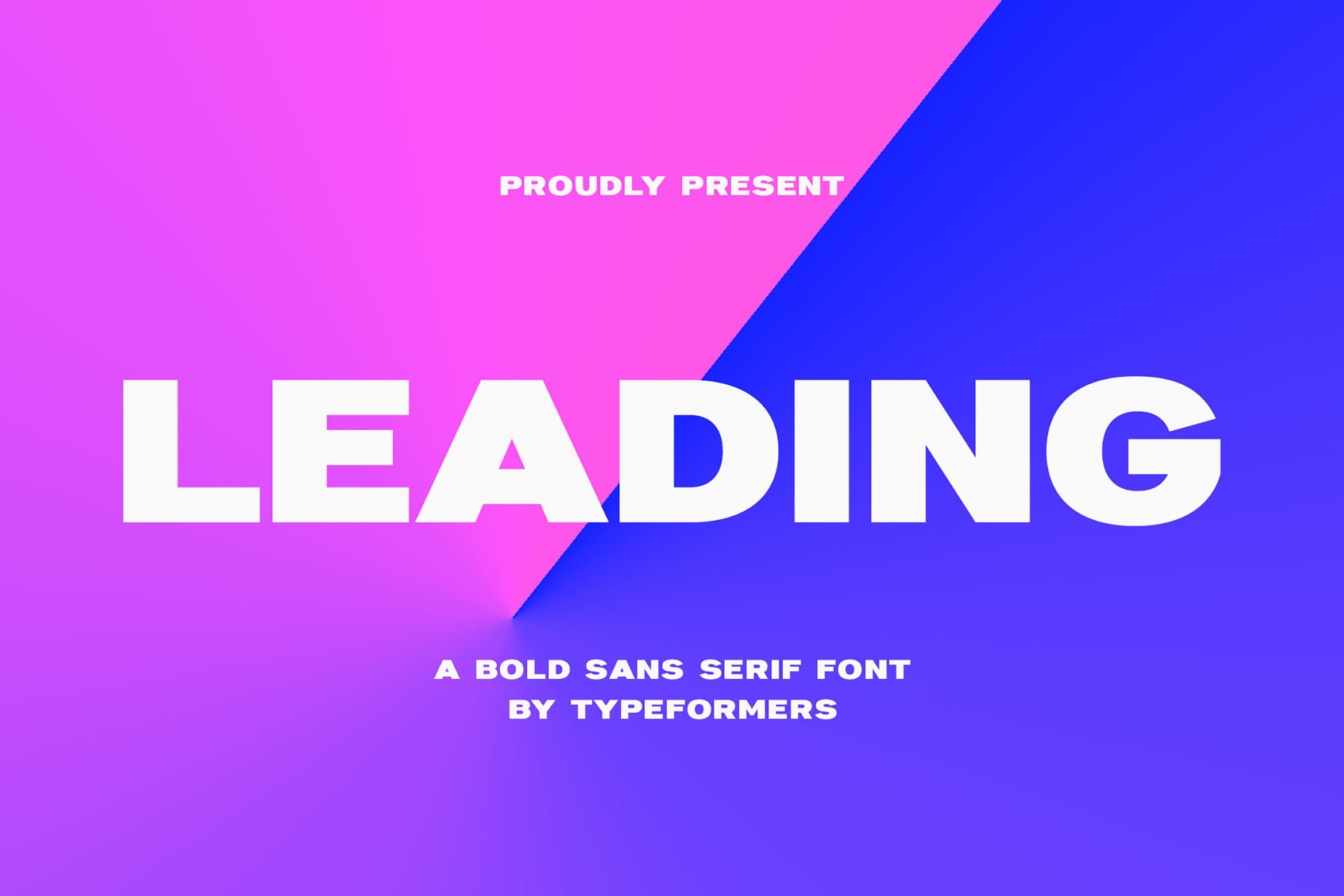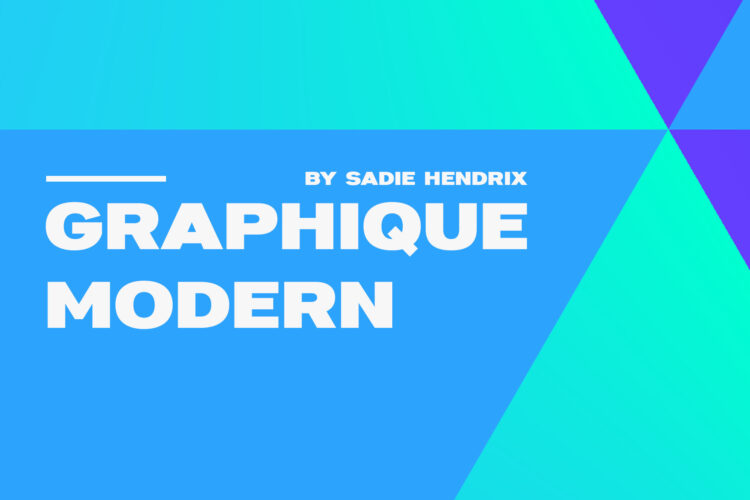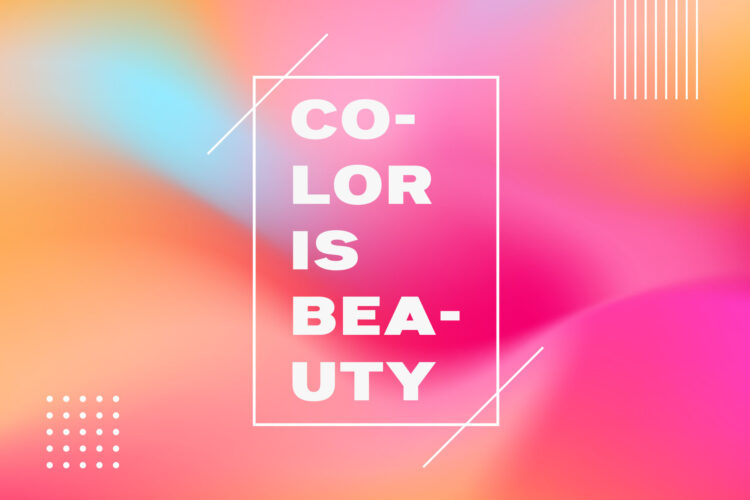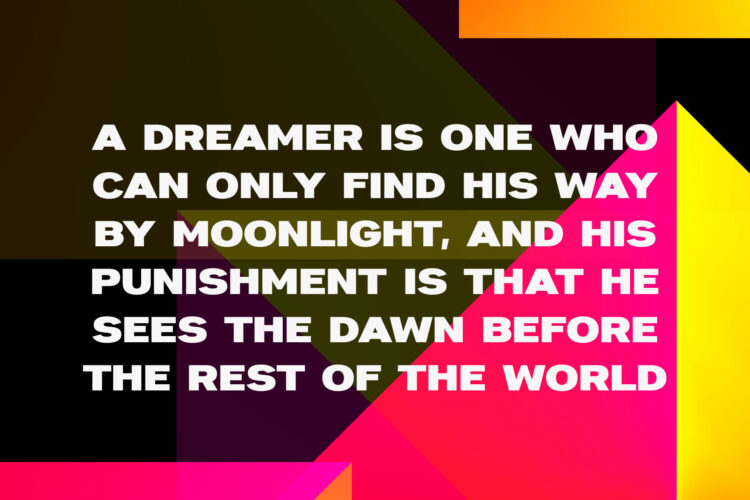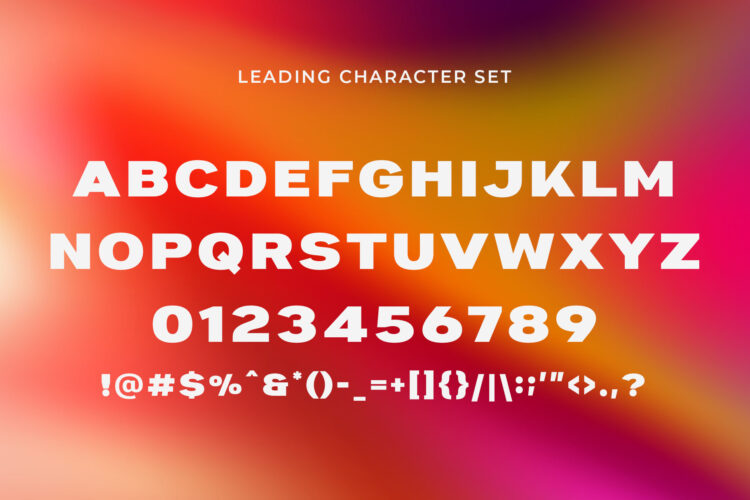
Introducing Leading – A Bold Sans Serif.
Leading is a modern and simple font, best used as a display for headings, logos, branding, magazines, product packaging and invitations.
Leading – Bold Sans Serif